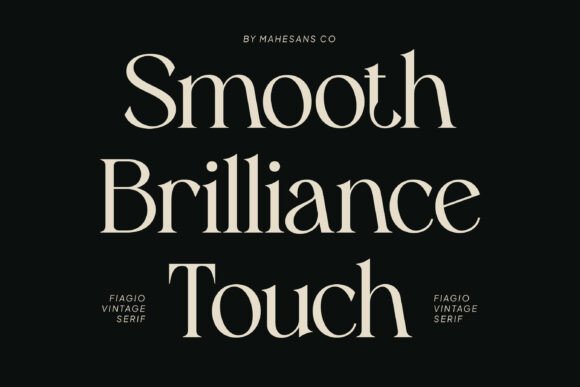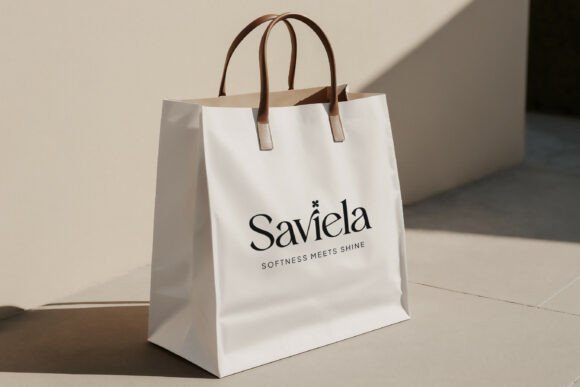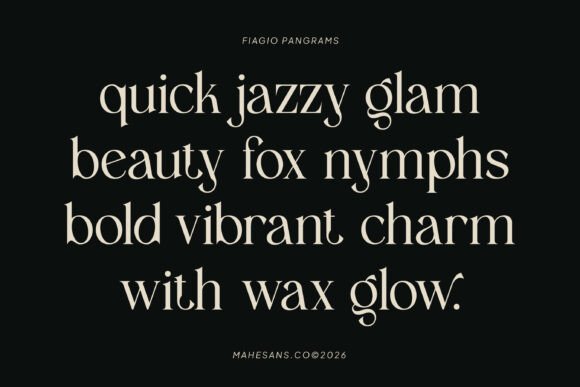
The Perfect Blend of Elegance and Sophistication
Have you ever stumbled upon a vintage typographic piece that makes you feel like you’re holding a piece of history? The way the letters dance across the page, the curves, the strokes – it’s a sensory experience like no other. For designers, finding that perfect font can be a game-changer. That’s where Fiagio Font comes in – a vintage-inspired serif typeface designed to bring a touch of timeless elegance to your visual identity.
Fiagio Font is more than just a font – it’s a tool that helps you craft a confident and polished tone that resonates with your audience. Whether you’re creating a luxury brand, a fashion label, or a high-end product presentation, this font is sure to elevate your design game. With its elegant proportions, stylish curves, and high-contrast strokes, Fiagio Font is the perfect blend of sophistication and personality.
Fiagio Font Key Features
- Size: The font family includes 6 weights: Thin, Light, Regular, Medium, Bold, and Black.
- Unique Characteristics: The font features a unique blend of modern and classic elements, with a distinctive rounded shape and subtle flair.
Fiagio Font Review
Overall, I have mixed feelings about the Fiagio Font. While it has its unique qualities, it also has some limitations that might make it less suitable for certain design projects.
- ✨ Unconventional style: Fiagio Font has a distinct, avant-garde feel that can add a touch of sophistication to modern designs.
- ✨ Versatile: The font is available in multiple weights and styles, making it suitable for a wide range of applications, from body text to headlines.
- ✨ Good legibility: Despite its unconventional design, Fiagio Font is still easy to read, even at smaller font sizes.
- ⚠️ Limited character set: The font’s character set is not comprehensive, which can make it difficult to use for languages that require a wide range of special characters.
- ⚠️ Not suitable for small text: While Fiagio Font is legible, it can become difficult to read when used at very small font sizes, such as in footnotes or captions.
- ⚠️ Overpowering: The font’s unique style can be overwhelming if used extensively throughout a design, making it difficult to create a balanced composition.
Overall, I would recommend Fiagio Font for projects that require a bold, modern aesthetic, but with caution and careful consideration of its limitations.
Some tips for getting the most out of Fiagio Font include:
– Using it for creative and artistic projects, such as invitations, posters, and graphics.
– Pairing it with other fonts to create a unique and eye-catching design.
– Adjusting the font size and color to create visual hierarchy and emphasis.
– Using it for headings and titles to add a touch of elegance and sophistication.
Alternatives to Figaro Font
Playfair Display is a luxurious and elegant serif font, perfect for high-end branding and luxury products. It features intricate details and ornaments, making it ideal for special occasions and events.
Comparison to Figaro: Playfair Display has a more ornate and formal feel, while Figaro is more minimalist and modern. Playfair Display is better suited for formal invitations, luxury packaging, and high-end branding.
What is the recommended font size and line height for using Fiagio Font in digital interfaces?
The recommended font size for Fiagio Font in digital interfaces is between 12-16 points for body text, with a line height of 1.2-1.5 times the font size. For headings, a font size of 18-24 points is recommended, with a line height of 1.5-2 times the font size. These recommendations ensure optimal readability and legibility in digital interfaces.